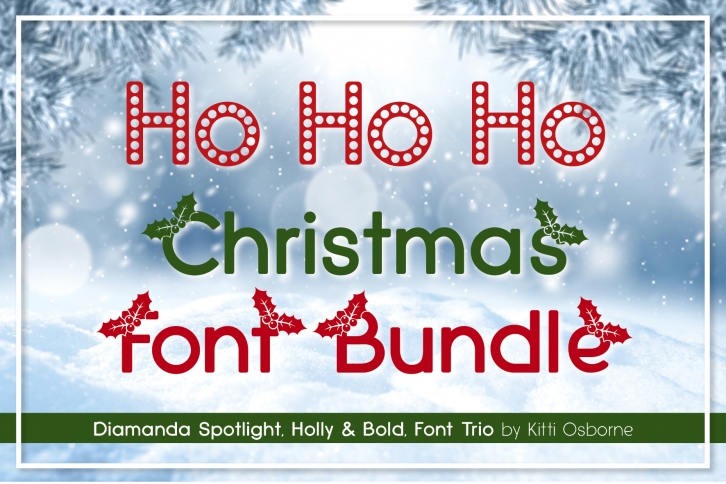
Spotlight, Holly and Bold, Diamanda Christmas Trio Bundle is a great font that was designed by Kitti Osborne. Imagine the amount of combinations you can create using this font! The archive is 5.97 MB and it was released on November 5, 2019. Spotlight, Holly and Bold, Diamanda Christmas Trio Bundle looks beautiful on wedding invitations, greeting cards, logos, posters, labels, t-shirt designs, logos, business cards and is perfect for use in ink or watercolor works, fashion, magazines, packaging and food menus, children's books and more!